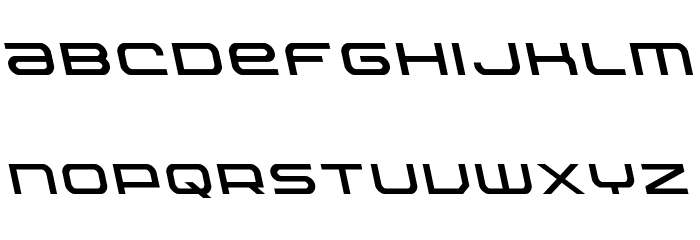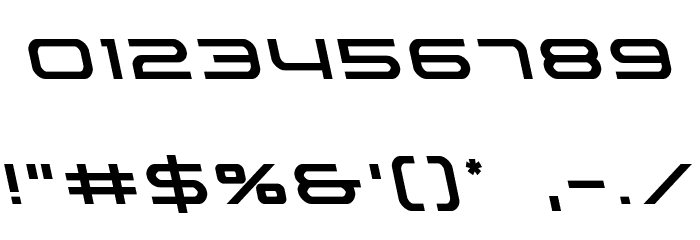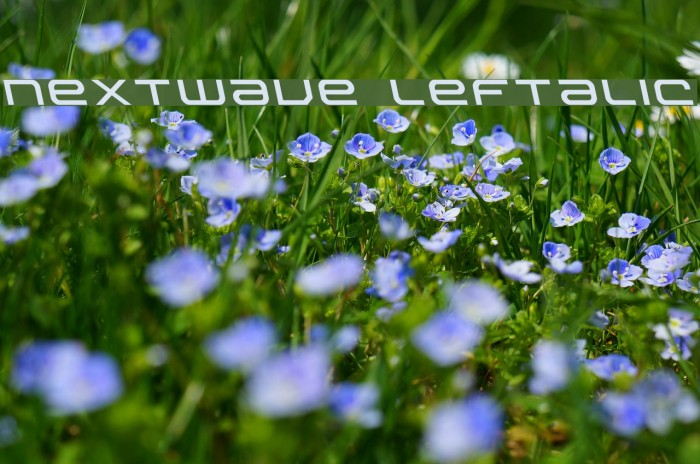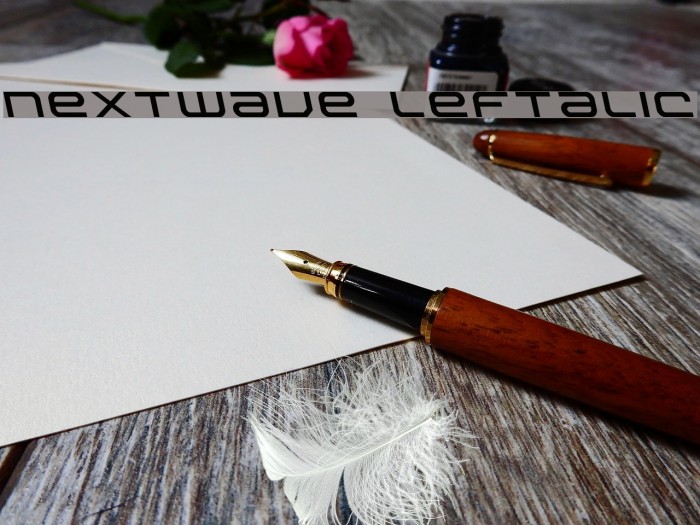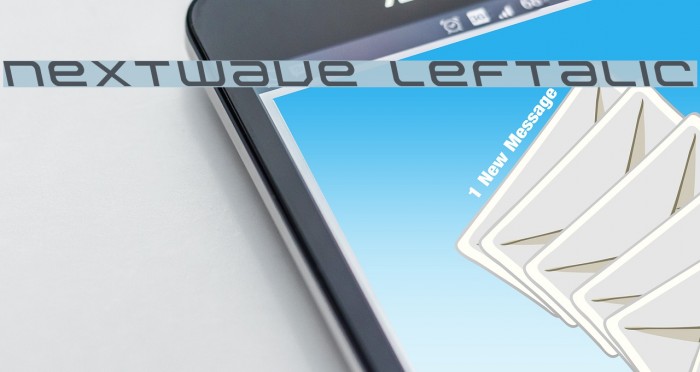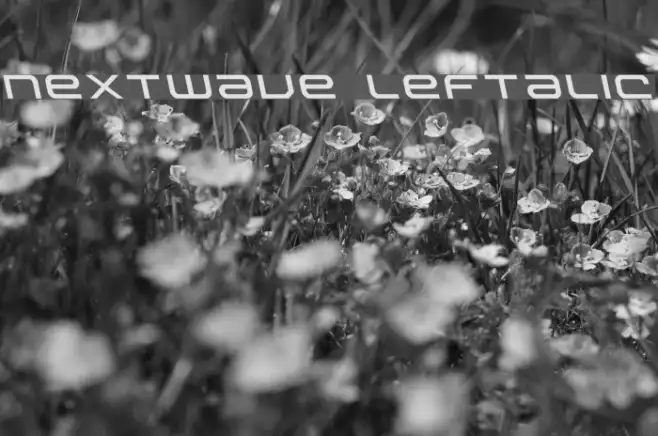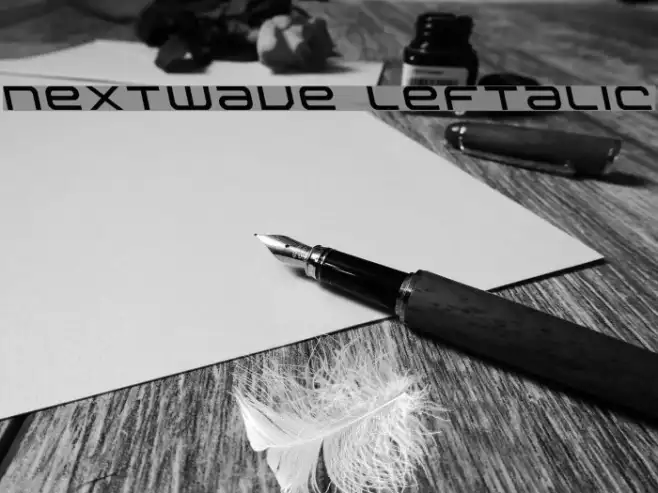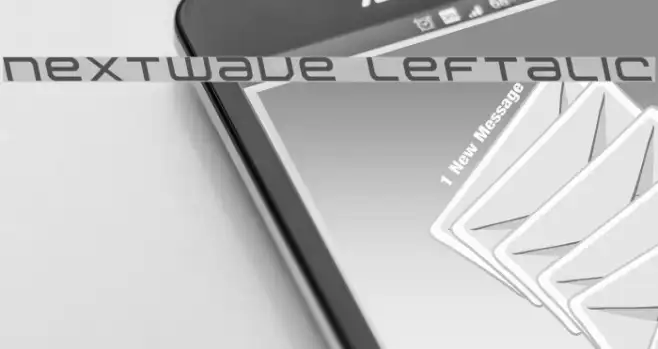
Nextwave Leftalic Font
This font features a futuristic and angular design, characterized by its geometric shapes and sharp edges. The letters are slightly slanted, giving a sense of motion and modernity. The uppercase and lowercase characters maintain a consistent style, with a uniform stroke width that enhances readability. The numerals and special characters follow the same design principles, ensuring a cohesive look across all glyphs. This font's unique style makes it suitable for projects that require a contemporary and tech-savvy appearance.
A futuristic, angular font with geometric shapes and a modern slant.
- Proposed Projects: Ideal for technology branding, sci-fi posters, video game interfaces, and modern advertising.